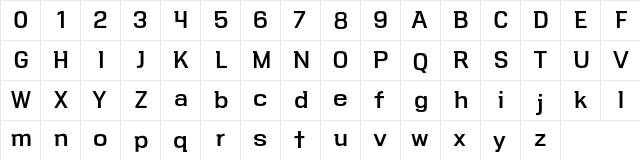
VersaBlock-Personal-Use-Only Regular
| Foundry | Parker Creative, LLC. |
| Designer | Alan Parker |
Design Context for VersaBlock-Personal-Use-Only Typeface
VersaBlock-Personal-Use-Only offers clean, dependable letterforms without strong stylistic allegiance, making it a practical choice for designers who need flexibility.